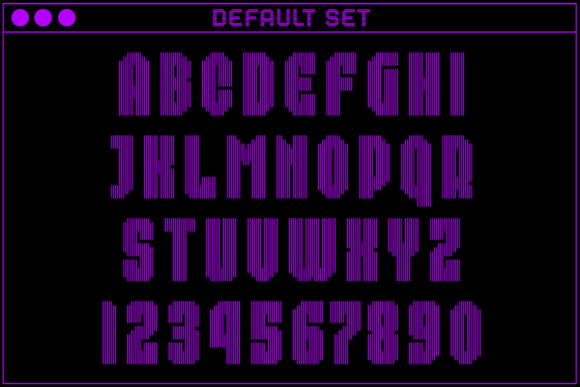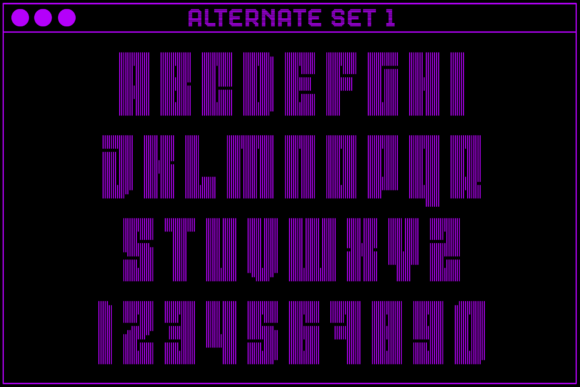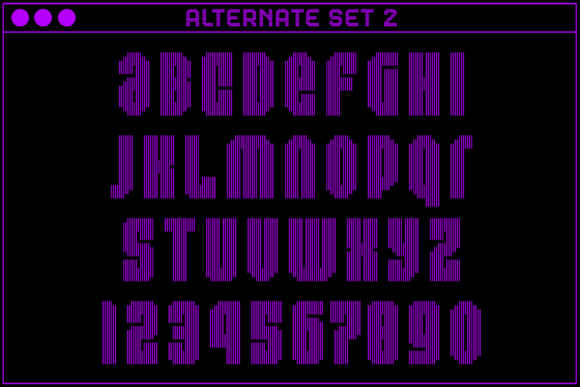
Introduction to MultiType Lines Compact 2 Font
MultiType Lines Compact 2 is a cool, uniquely shaped, pixelated decorative font.
Add a distorted and trendy touch to your designs with this unusual pixel font MultiType Lines Compact 2 is PUA encoded, which means you can access all of the glyphs and swashes with ease.